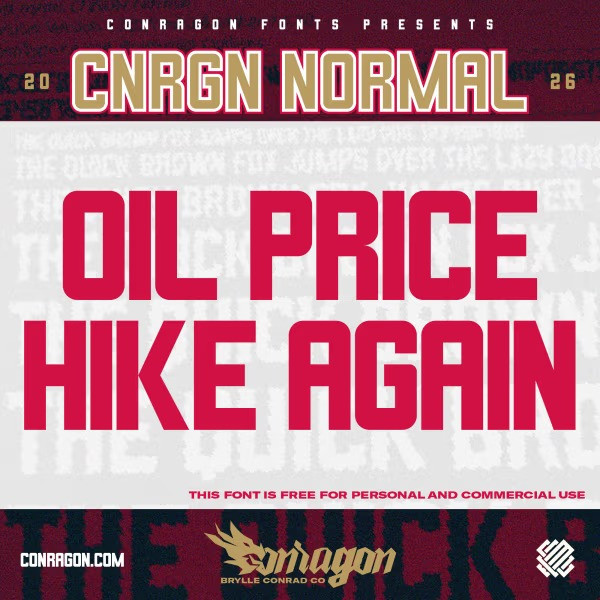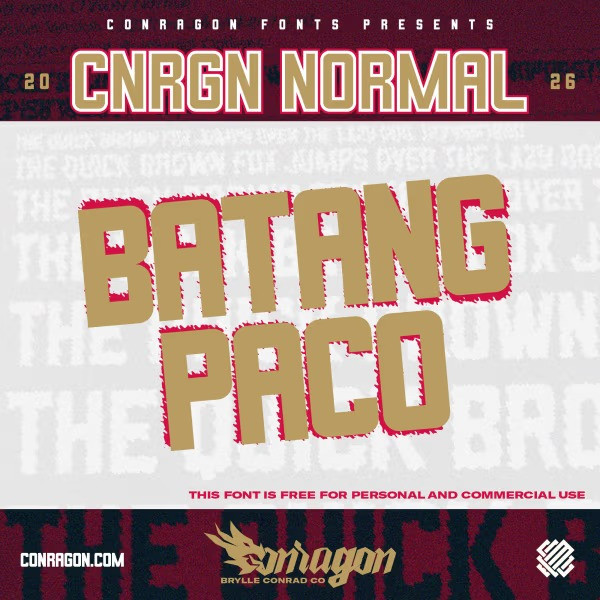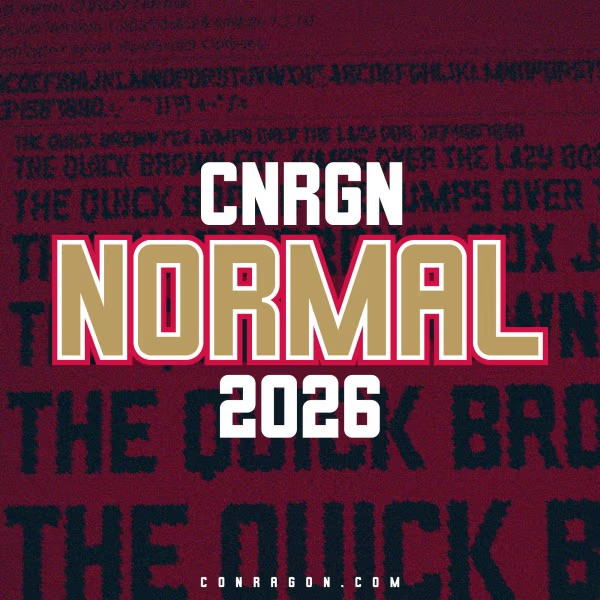
CNRGN Normal Font a bold, condensed, and slab-serif structure, drawing heavy inspiration from classic American collegiate and athletic aesthetics. It’s designed to convey a sense of strength, tradition, and high energy.
CNRGN Normal Font
| Designer Name: | Conragon Fonts |
| Classification: | Retro / Vintage Fonts, Slab Serif Fonts, Sports Fonts |